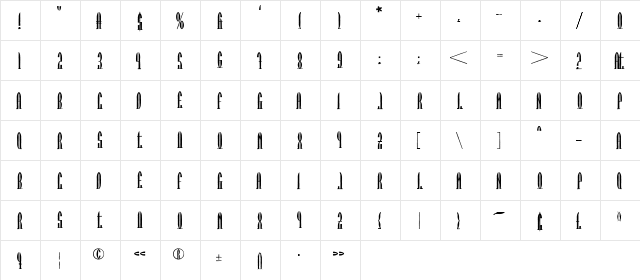
Caliber Fragmented Regular
Design Context for Caliber Fragmented Typeface
Caliber Fragmented is a composed and adaptable typeface that performs quietly and consistently across a wide range of design contexts.